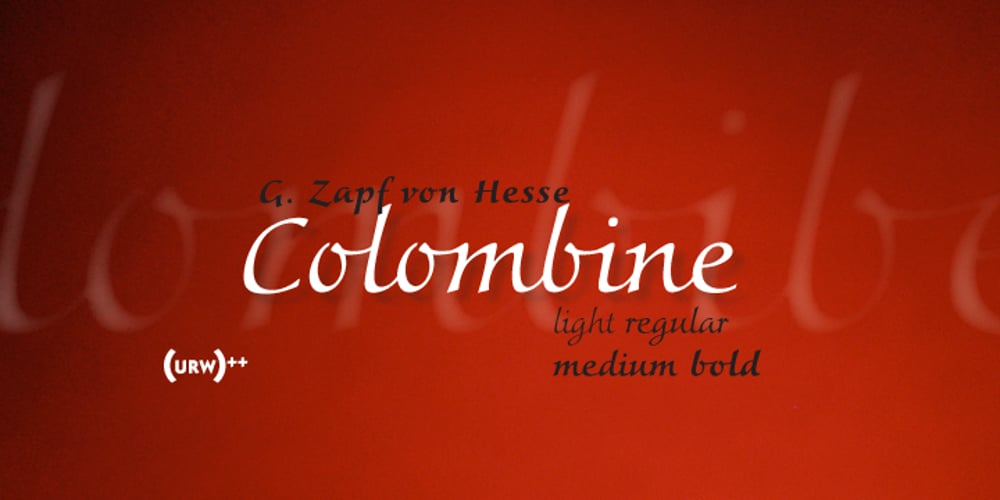
Colombine Pro
Colombine Pro font
Colombine Pro Font Family was designed by Gudrun Zapf-von Hesse and published by URW Type Foundry. Colombine Pro contains 4 styles and family package options. URW Colombine is a beautiful script typeface designed for us by Gudrun Zapf von Hesse. URW Colombine comes in four versions: light, regular, medium, and bold.